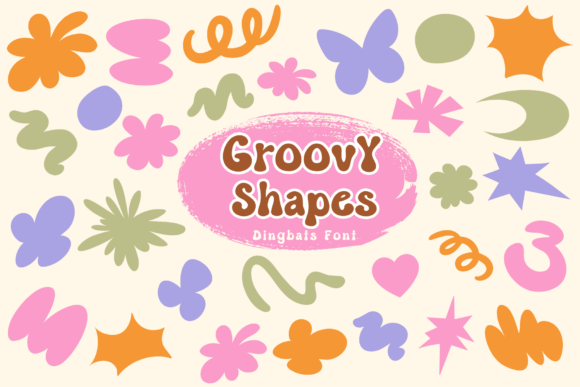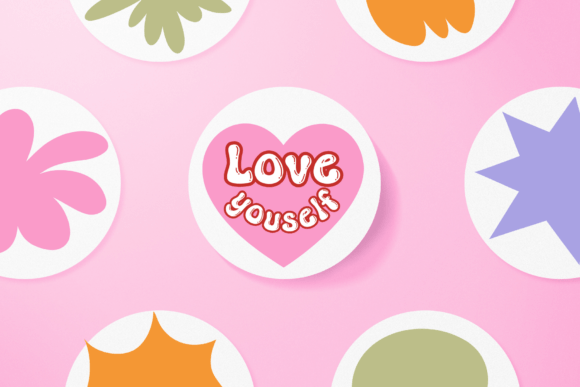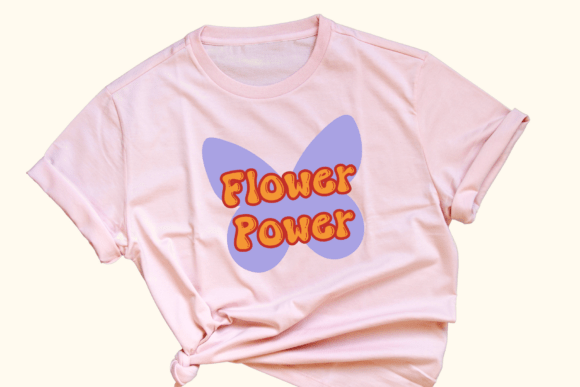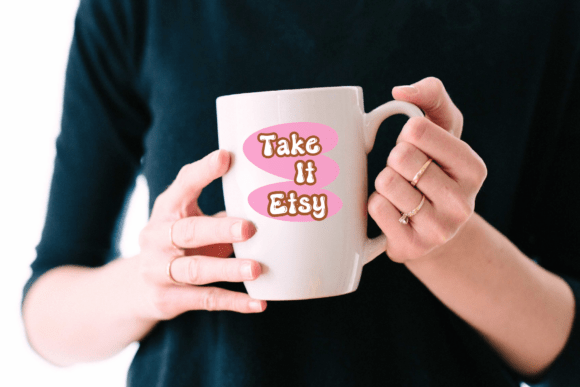
Groovy Shapes Font
About the Groovy Shapes Font
Make a bold statement with Groovy Shapes Font, a powerful and memorable font. Get ready to make some groovy artwork!! This Groovy Shapes Doodle font is loaded with great shapes to base your retro designs from and some ready made graphics to start your funky design vibes.
Groovy Shapes Doodle font perfect for creating branding projects, stickers, apparel artwork, wall art prints, cards, social media posts & icons and whatever other creativity you can dream up!
Its playful, hand-drawn aesthetic makes Groovy Shapes ideal for projects requiring a retro, fun feel. Excellent choices include branding for children’s products, quirky apparel designs, or eye-catching social media graphics. Avoid using it for large blocks of body text; its informal nature hinders readability in extended passages.
Consider pairing it with a clean sans-serif like Open Sans for contrast and improved legibility in supporting text, or a simple geometric sans-serif for a modern retro vibe. A script font could add a touch of vintage elegance, depending on the desired tone.
Groovy Shapes’ inherent boldness lends itself well to headlines and short impactful phrases but would be unsuitable for UI elements or situations demanding high levels of professionalism.
Groovy Shapes Font Usage Examples
Groovy Shapes Font Example